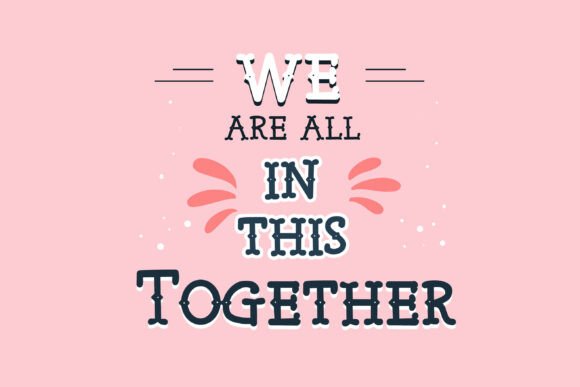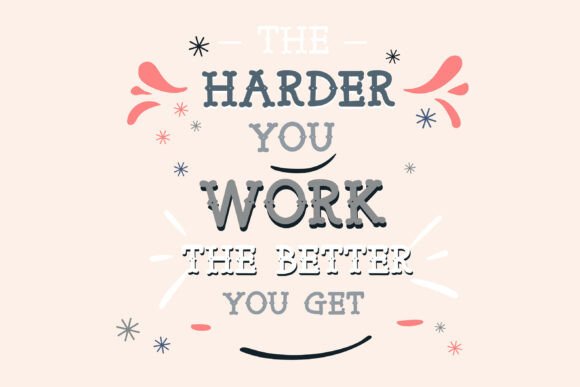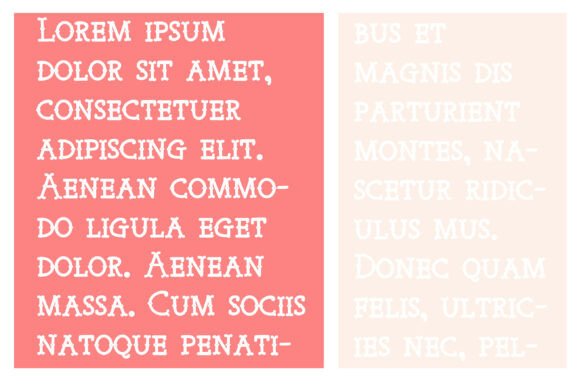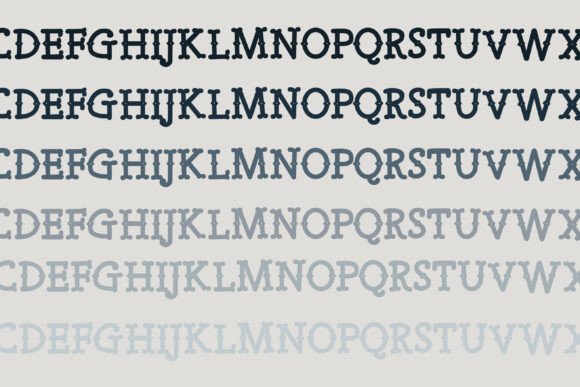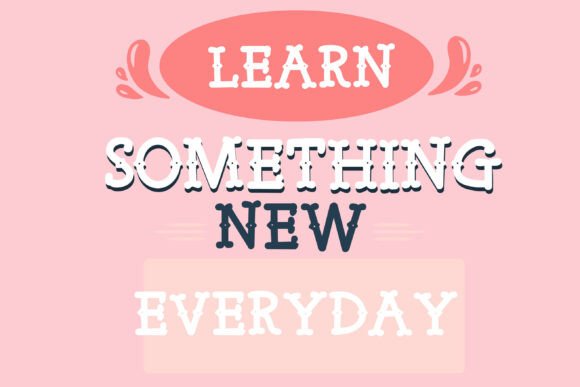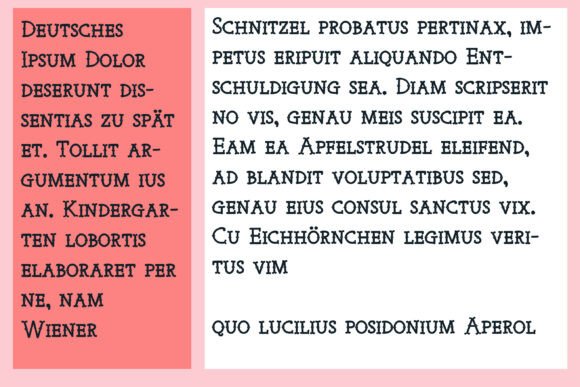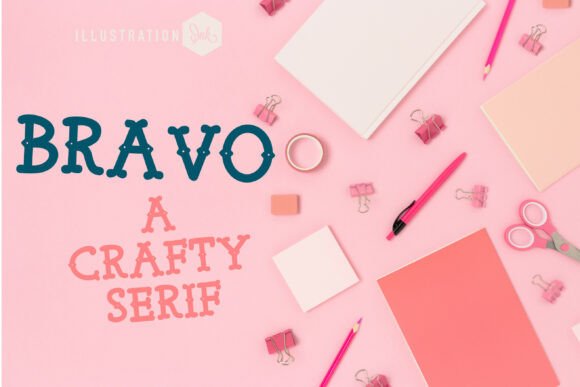
Celebrating Creativity with Bravo Font
Have you ever been in the middle of a design project, and suddenly, you’re stuck on finding the perfect font? I recall a recent experience where I was working on a branding project for a children’s toy store. The client wanted a font that was playful, yet sophisticated, and would appeal to both kids and parents. After hours of searching, I stumbled upon Bravo Font, and it was love at first sight! 🎉
The Bravo Font Difference
Bravo Font is a whimsical display serif that embodies a “bubbly-and-bright” soul. Its bold, rounded letterforms are uniquely characterized by rhythmic “circus-style” spurred accents and a heavy structural weight. This distinctive combination bridges the gap between vintage show posters and modern children’s branding, making it an excellent choice for various creative projects.
Here’s what I love about Bravo Font:
- ✨ Unique and playful design that’s perfect for creative projects
- âś… Highly legible, even in large and small sizes
- âś… Well-suited for titles, headings, and short paragraphs
- âś… Can be used for both digital and print projects
Small quirks or limitations:
- 🤔 May not be the best choice for body text or long paragraphs, as it’s quite bold and attention-grabbing
- ⚠️ Limited use of punctuation and special characters, but this can be addressed with OpenType features
Bravo Font was designed with the intention of capturing the essence of a vintage circus, while still feeling modern and fresh. The designer aimed to create a font that would be perfect for creative projects that require a playful, yet sophisticated look. With its bold, rounded letterforms and rhythmic accents, Bravo Font is sure to bring a touch of whimsy to any design project.
| What type of projects is Bravo Font best suited for? | Bravo Font is ideal for creative projects that require a playful, yet sophisticated look, such as branding for children’s toy stores, boutique birthday party logos, playful apparel designs, and high-impact social media headers. |
| Can I use Bravo Font for body text? | While Bravo Font is highly legible, it’s not recommended for body text or long paragraphs, as it’s quite bold and attention-grabbing. It’s best used for titles, headings, and short paragraphs. |
| Is Bravo Font suitable for digital projects? | Yes, Bravo Font can be used for both digital and print projects. Its bold, rounded letterforms and rhythmic accents make it perfect for high-impact social media headers, website titles, and more. |